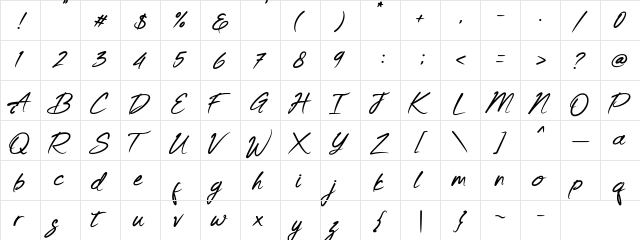
Keishue Regular
Design Context for Keishue Typeface
Keishue is a composed and adaptable typeface that performs quietly and consistently across a wide range of design contexts.